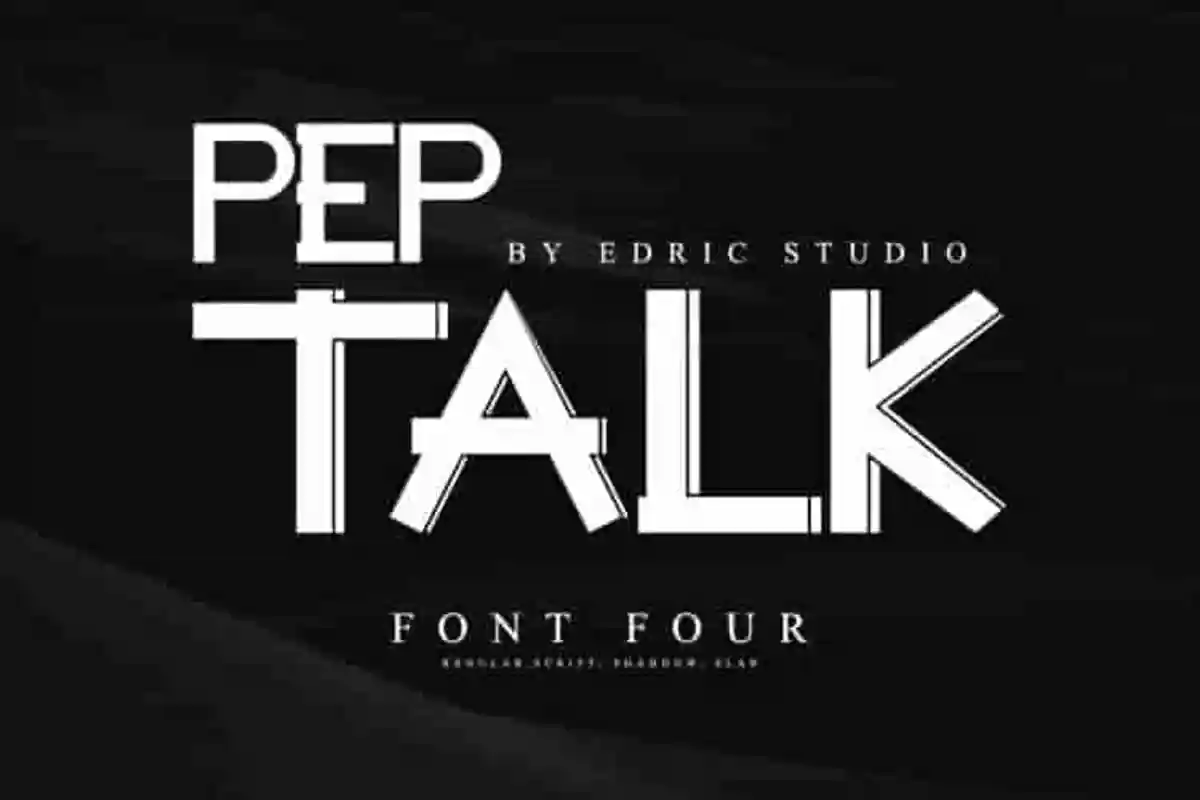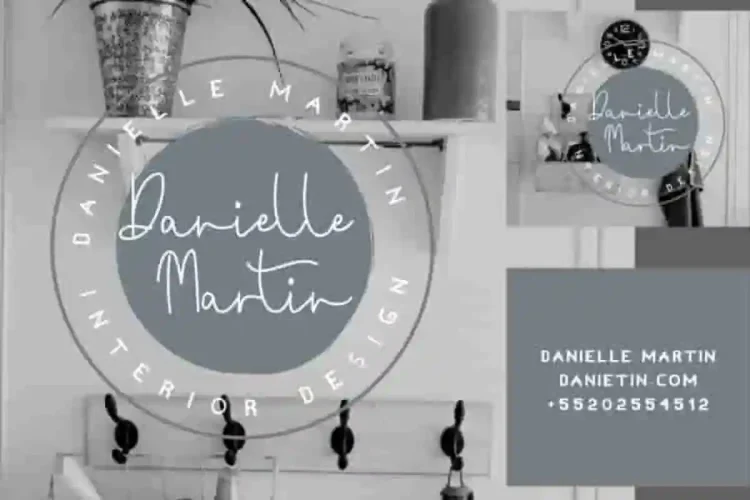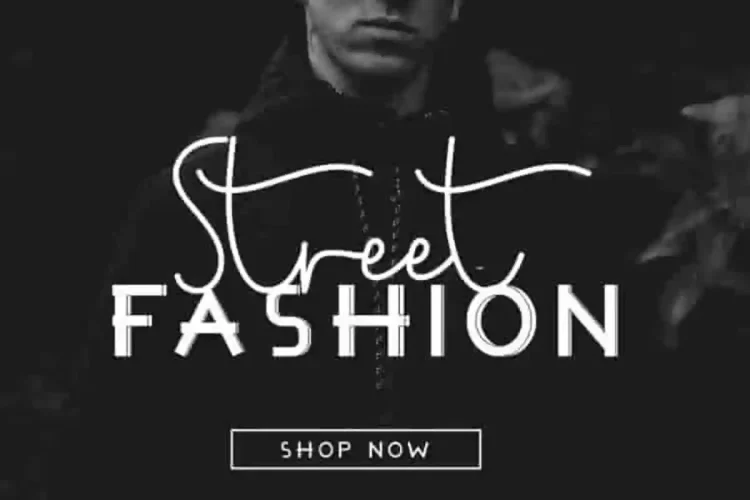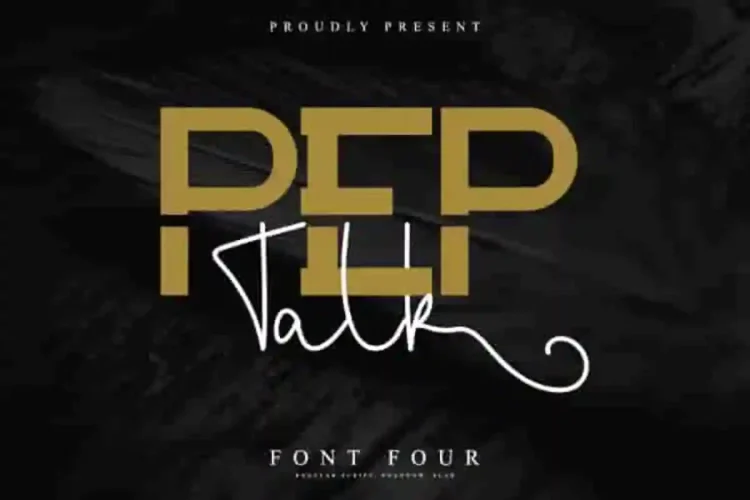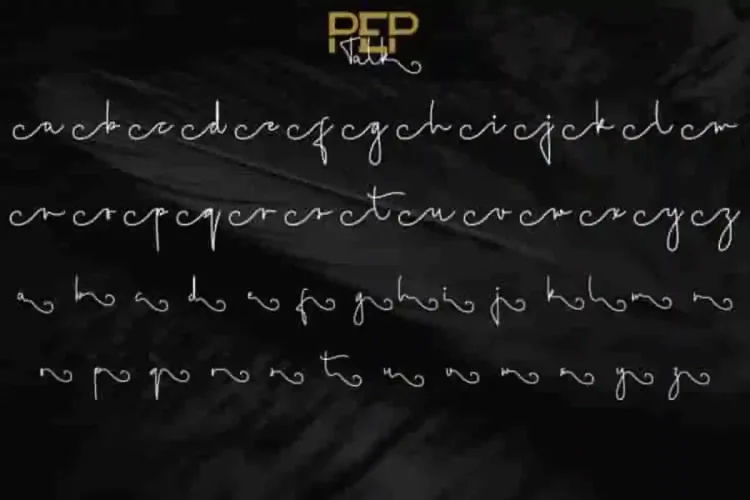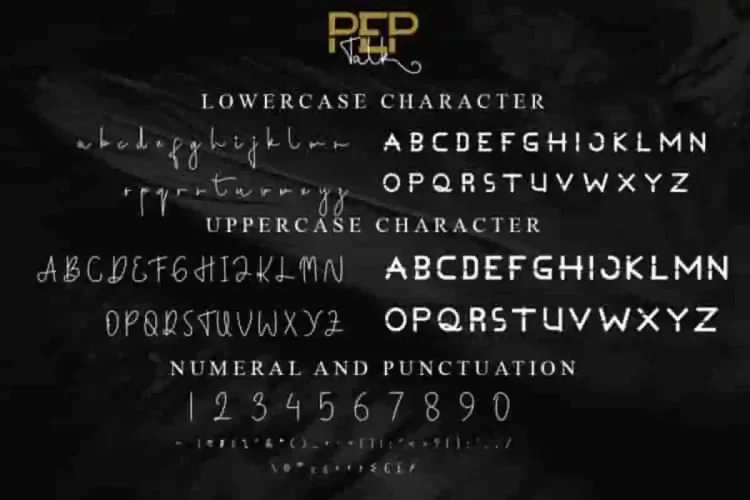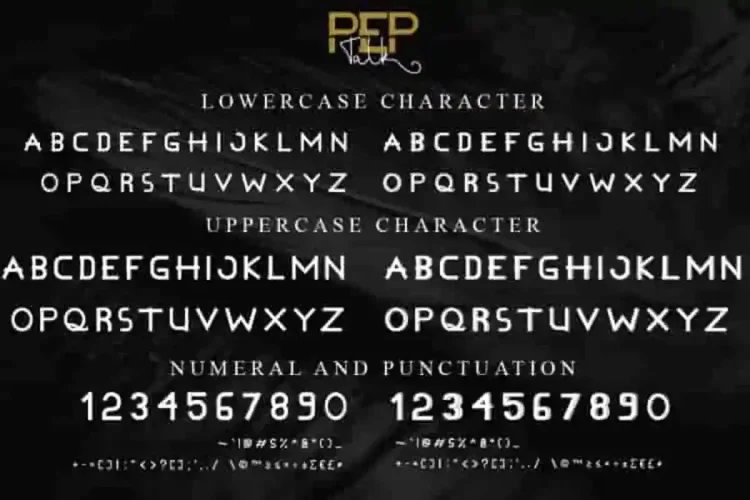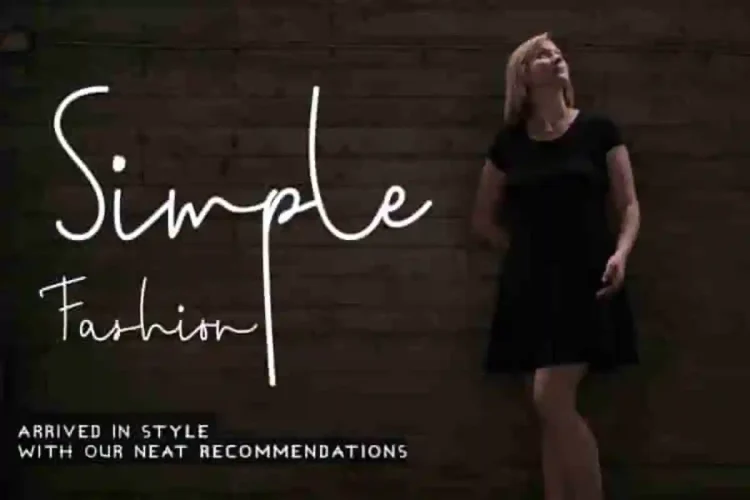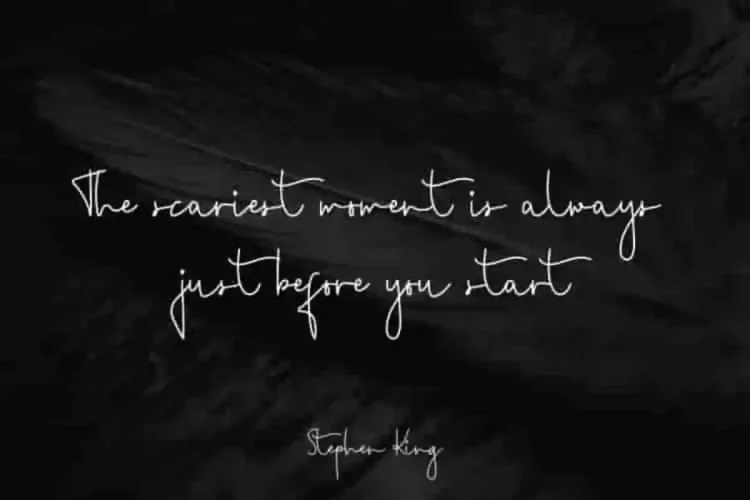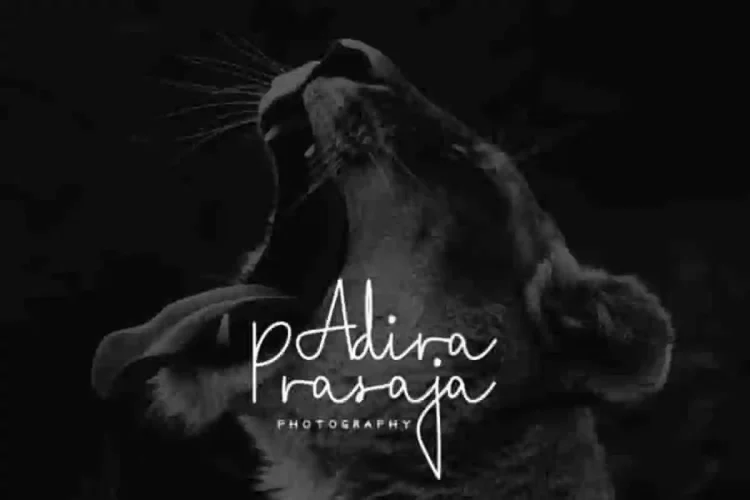
Pep Talk Display Sans Serif Font Duo
Introducing : Pep Talk!
This is a font duo with FOUR STYLES : Signature, Sans, Shadow and Slab
Pep Talk Display Sans Serif Font Duo  is a new modern font family with sans serif and display handwriting signature. It has a fresh, elegant, natural and stylish glyphs.
Pep Talk Display Sans Serif Font Duo will be perfect for branding, logo, photography and signature.